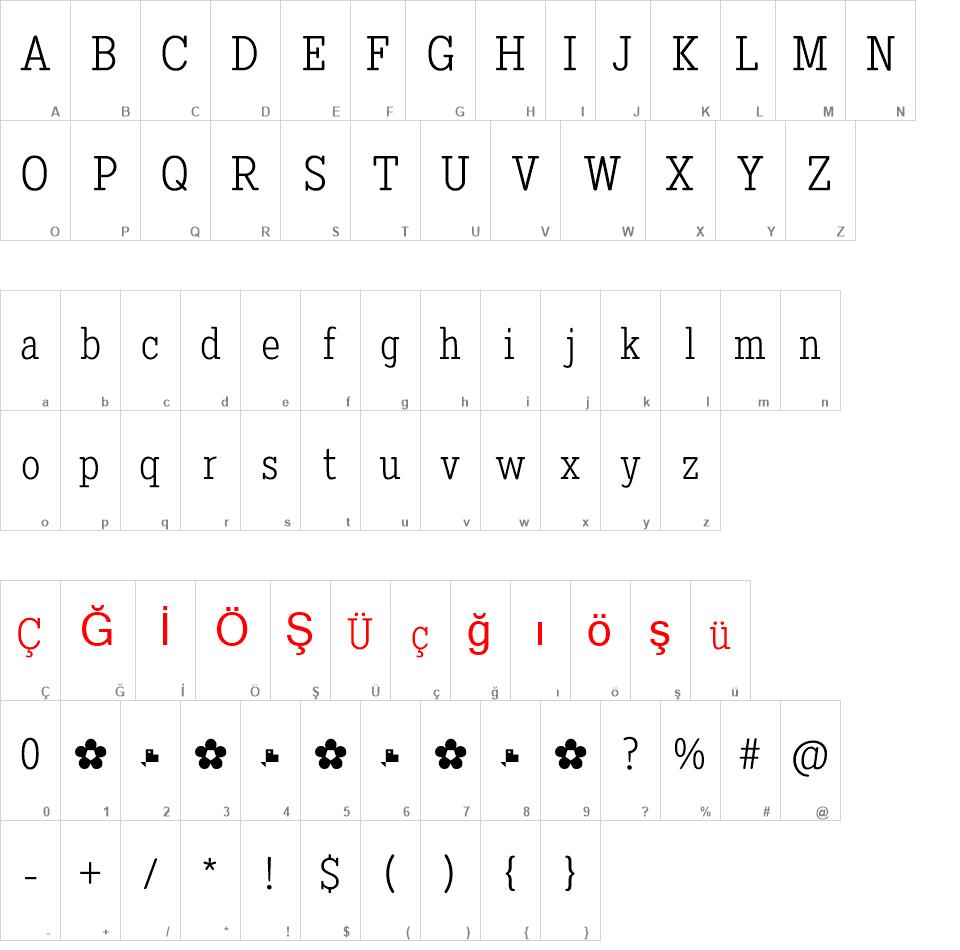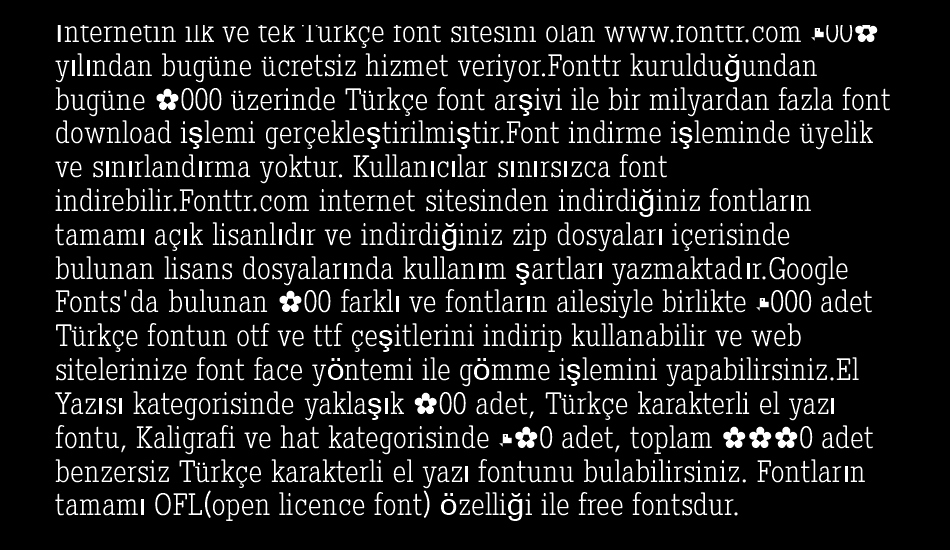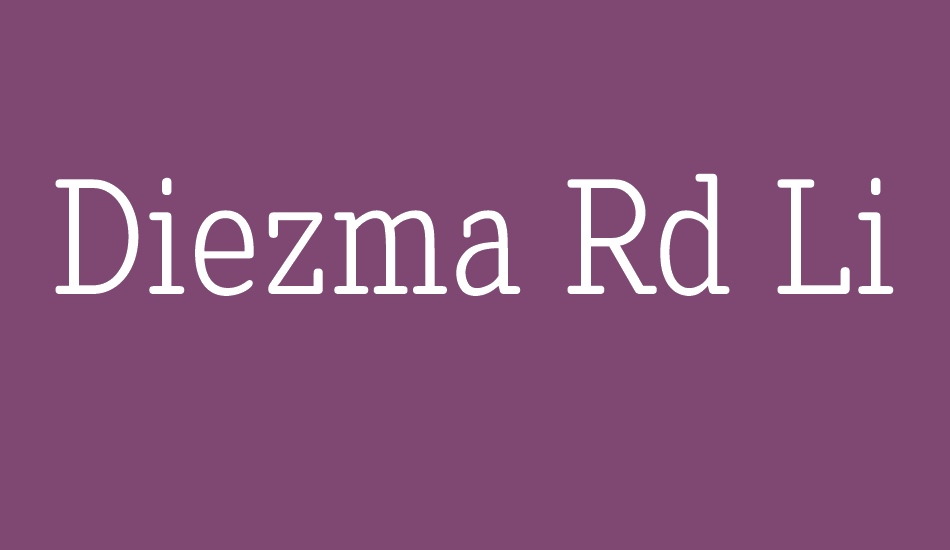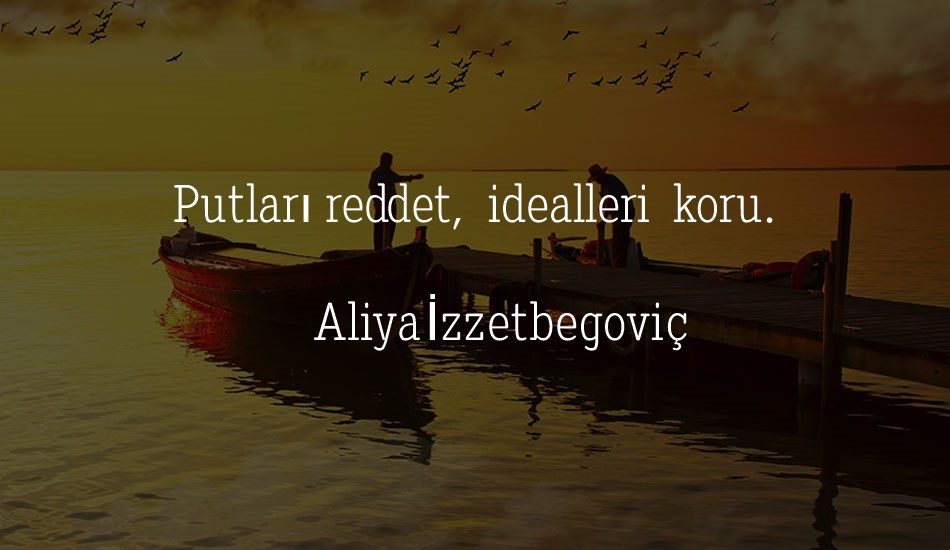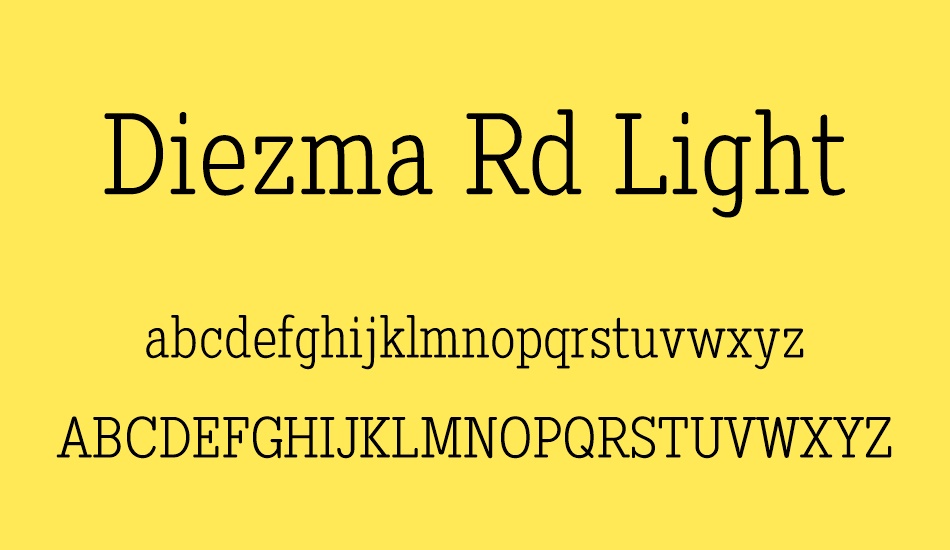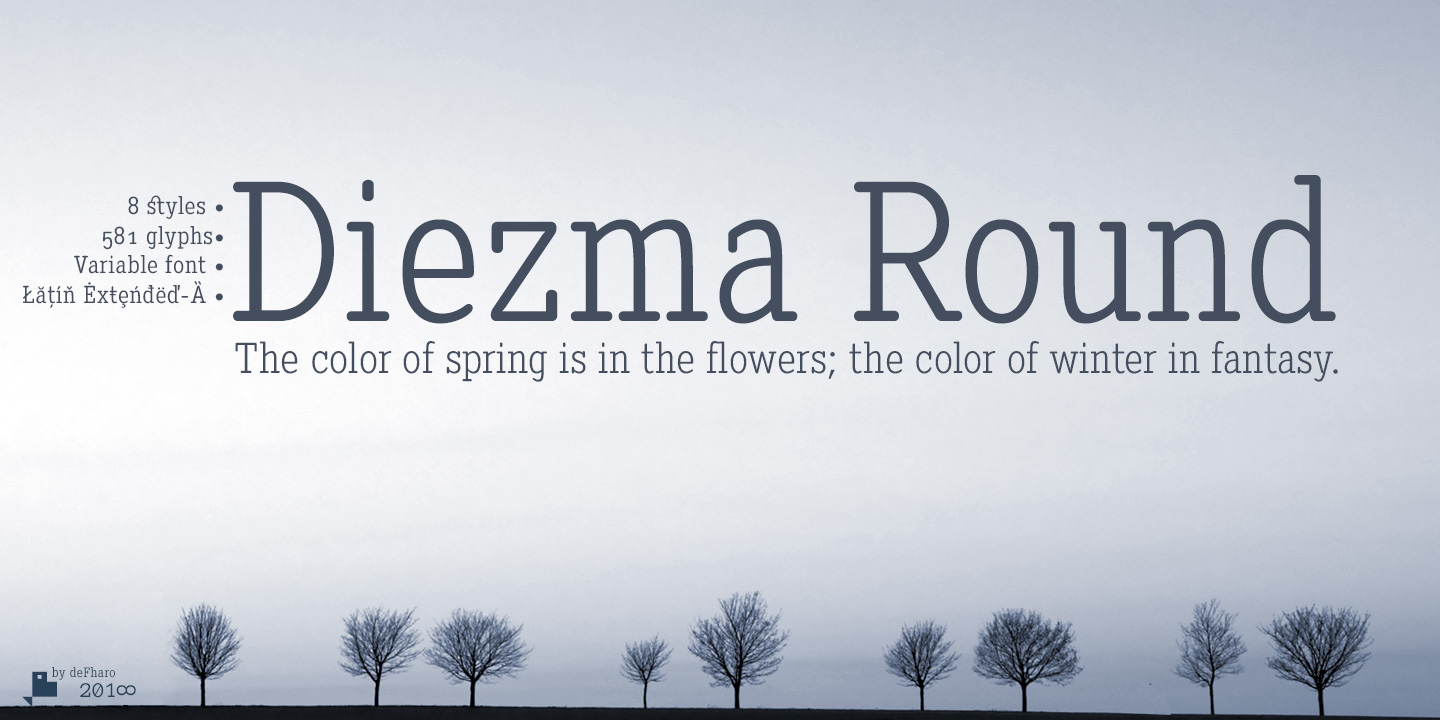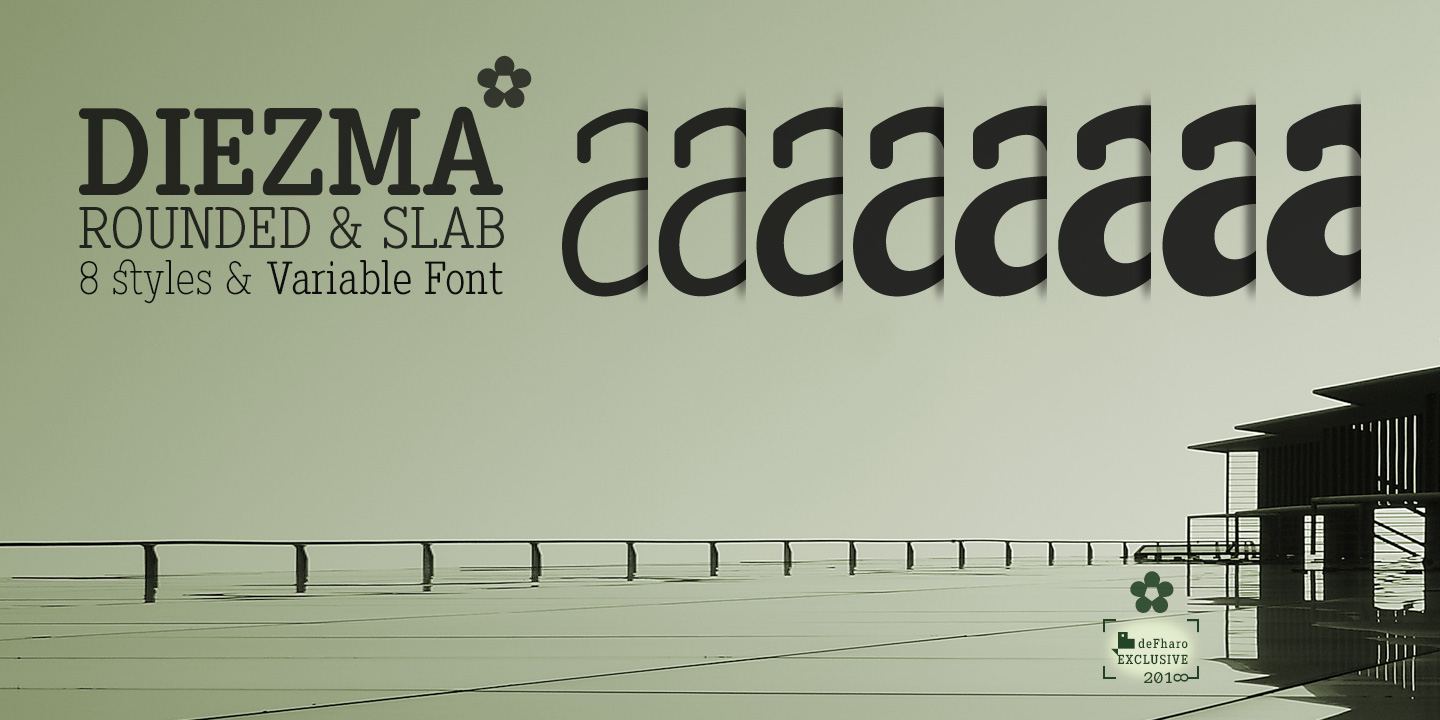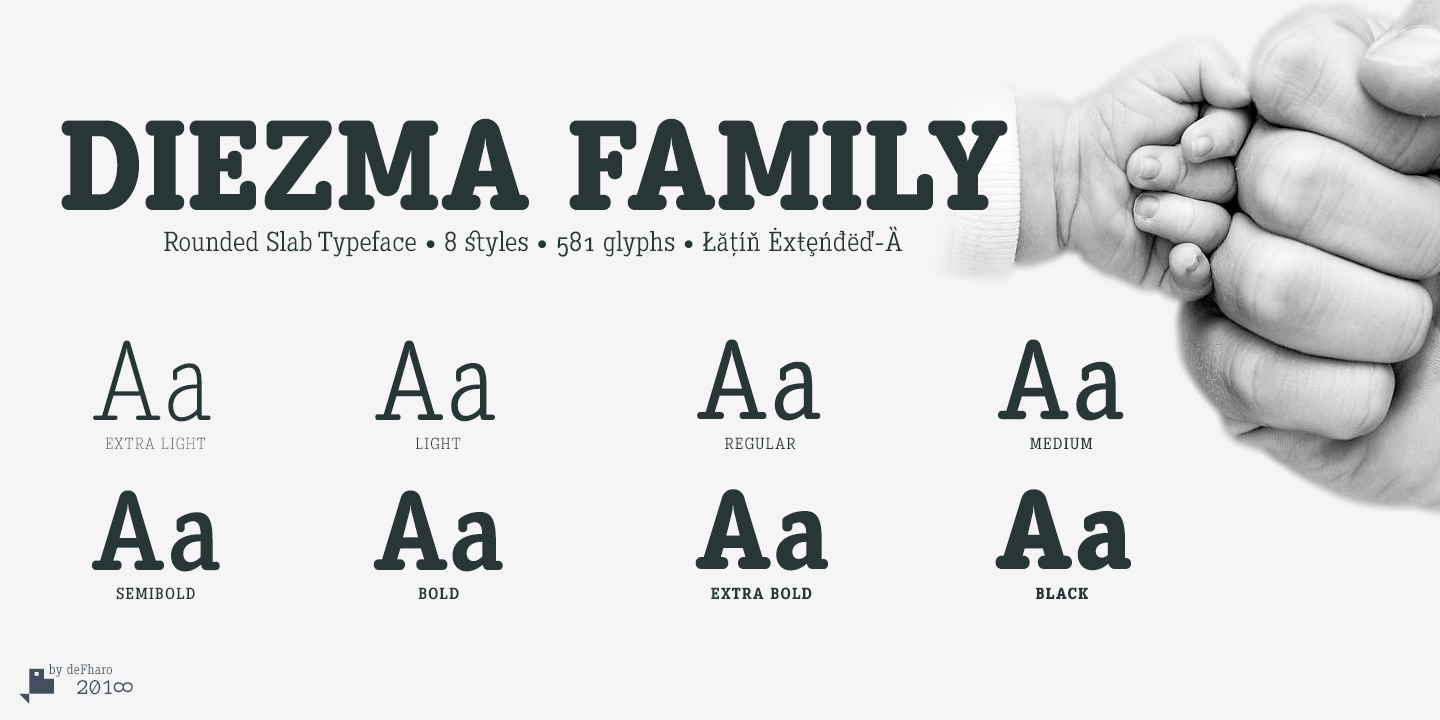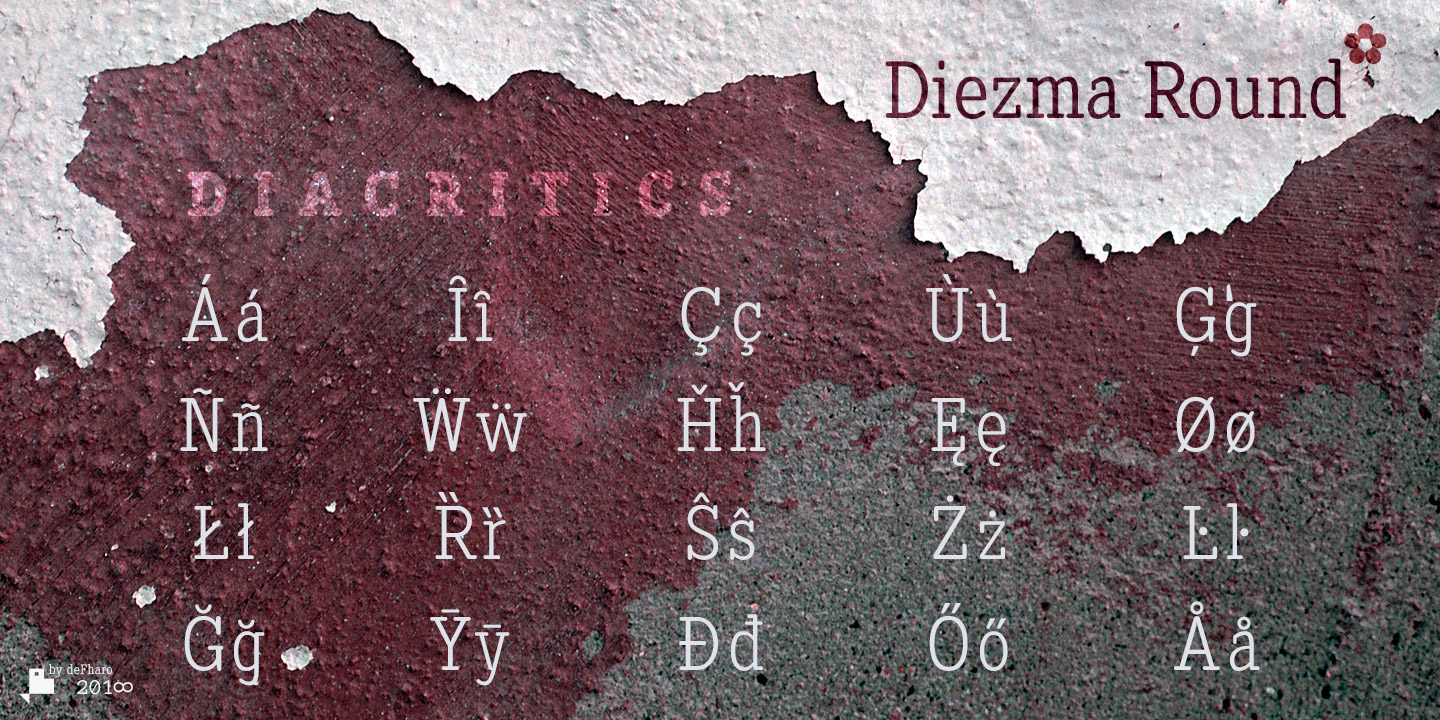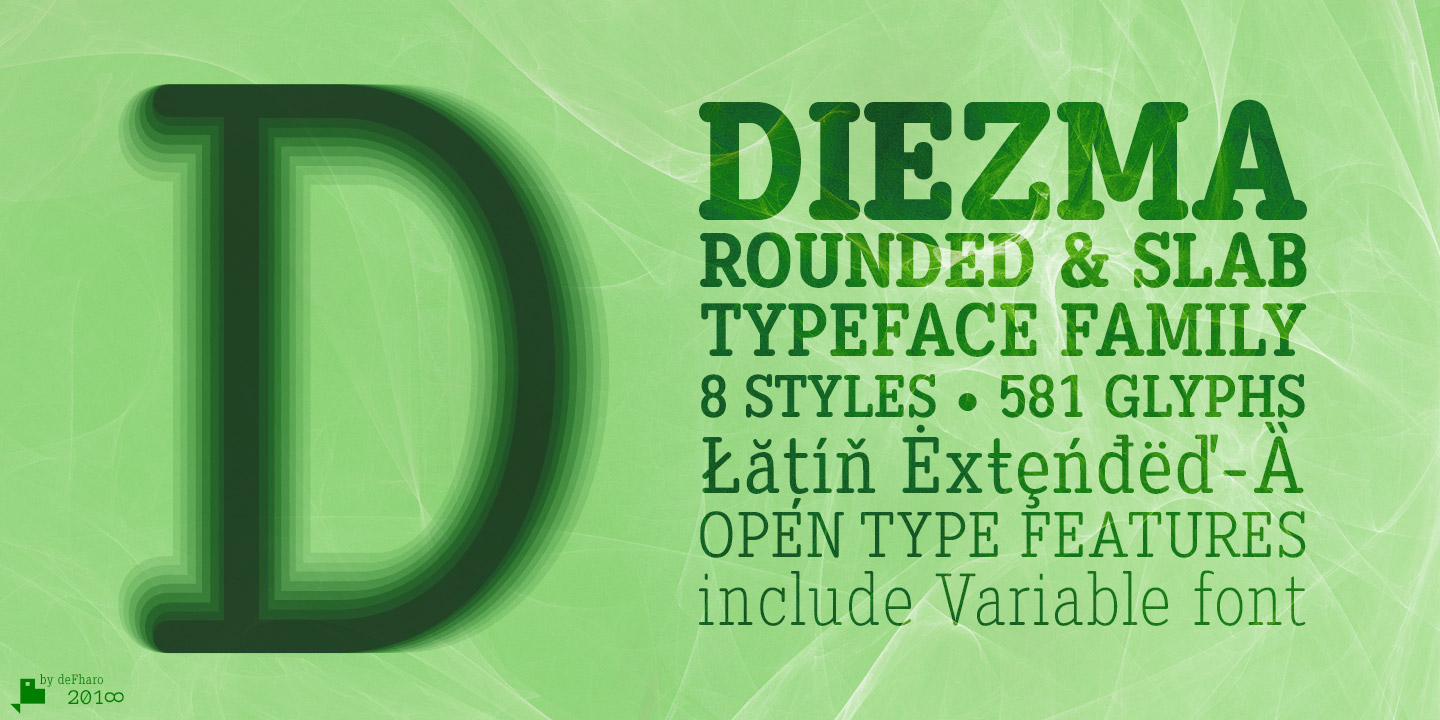
Diezma Rd font
Diezma Rd Font Family
Diezma is a typeface with rounded Slab serifs that give it a modern and elegant look in the lighter versions, the thicker versions complement the thin ones for titles and headlines. The personality provided by the counterforms of the font and the height of the x, both generous, and the soft curves, arising from a geometric matrix give this typography its contemporary appearance.
The typography is ideal for corporate use, texts of any size and web. The font contains 581 glyphs & 8 styles with OpenType functions, alternative letters and a set of Latin Extended-A and B characters that supports more than 200 languages that use the Latin alphabet.